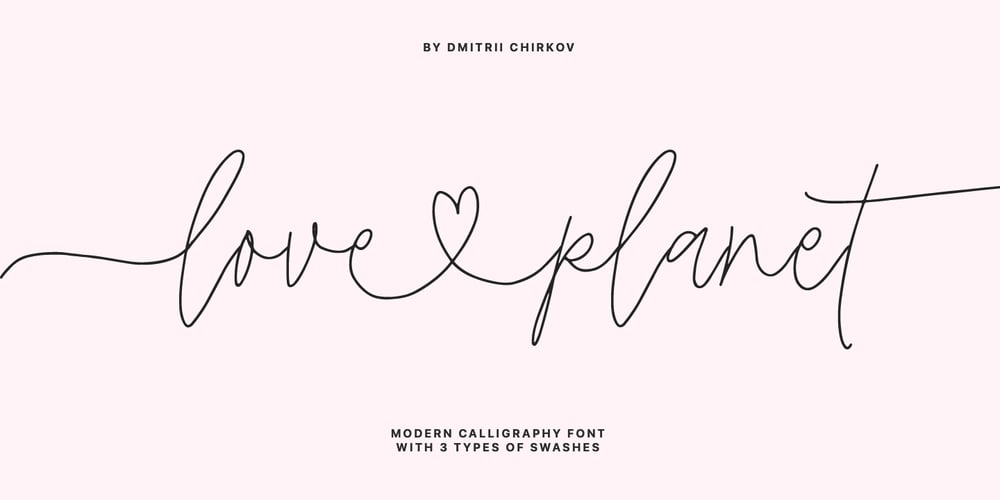
Love Planet Font Family was designed by Dmitrii Chirkov and published by Supfonts. Love Planet contains 4 styles and family package options. This modern calligraphy script has been attentively written, with gentle curves to produce a font thats completely distinctive and original. It contains a full set of lower and uppercase letters, a large range of punctuation, numerals, and multilingual support. Perfect for adding a elegant and unique touch to your lettering projects and brandingAlso with their help, you can create a Wedding lettering or beautiful frame for your home. Or just use for your small business, book covers, stationery, marketing, magazines and more.What’s included- Uppercase swashes- Lowercases Swashes- Heart Swashes- Multilingual supportCheck out my blog:- https://www.instagram.com/superdizigner- pinterest.com/dmitriychirkov7